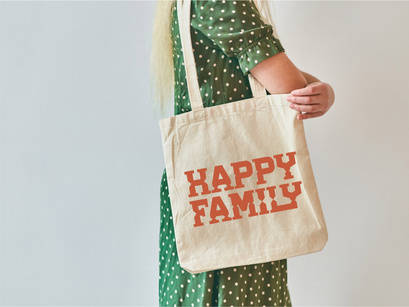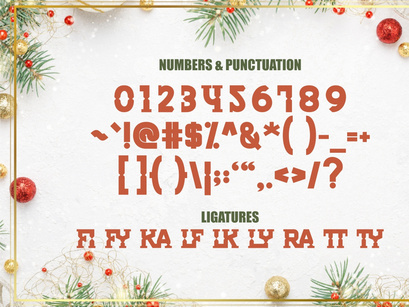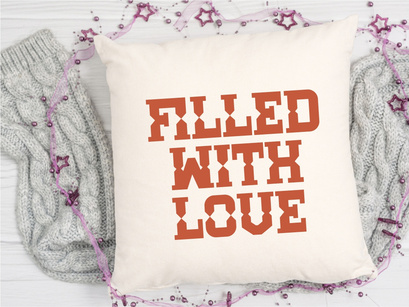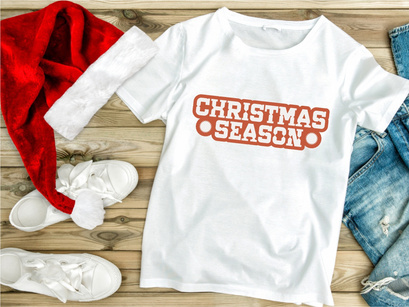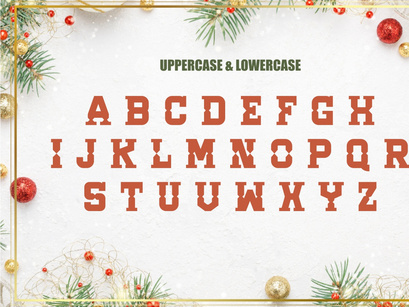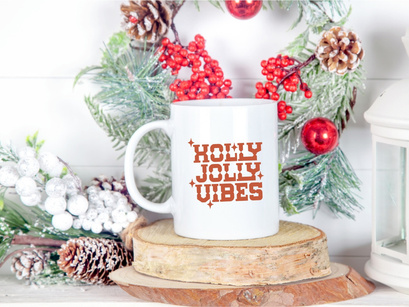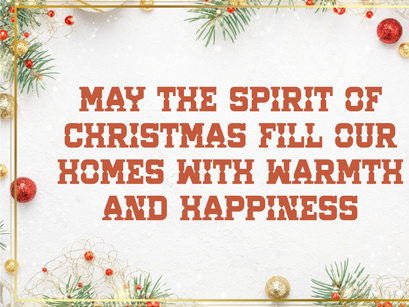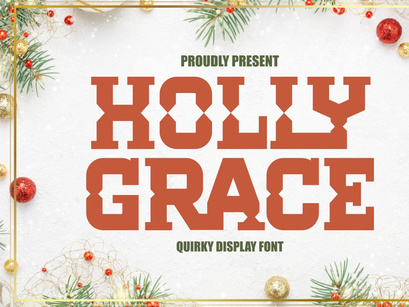
Holly Grace is a bold and quirky Quirky Display Font that adds unique personality to the Christmas and Holiday season. Its thick, blocky structure features playful cut-out details, making it the perfect display font for seasonal branding, holiday apparel, fun Christmas posters, and distinctive logo design. This typeface delivers an impactful, cheerful, and instantly recognizable visual identity, ideal for all your joyful December crafting and creative projects.